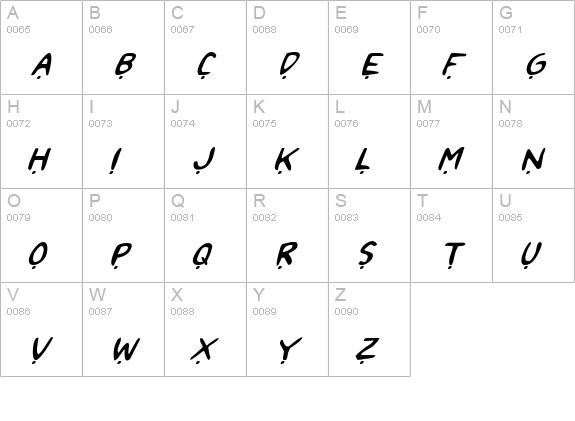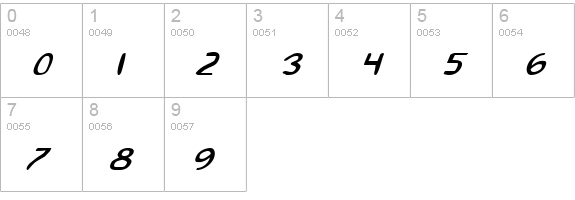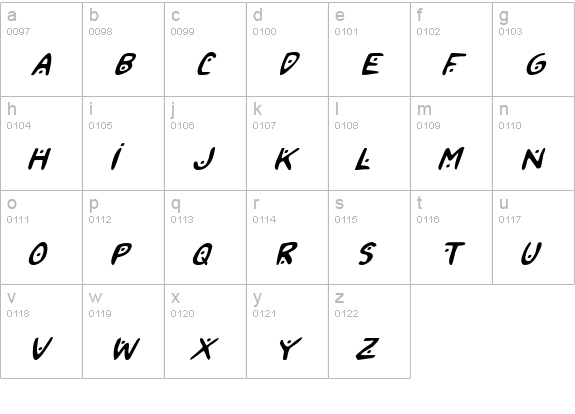
2Toon2 Italic Font Details
2Toon2 Italic is a distinctive, italic variant in the 2Toon2 typeface family \xE2\x80\x94 well suited to design and typography projects.
Introducing 2Toon2 Italic font, a whimsical and playful typeface designed to bring a touch of fun to your projects. With its unique and eye-catching appearance, 2Toon2 Italic is perfect for adding a creative twist to any design. Whether you're working on invitations, posters, or branding materials, this font will surely make your text stand out. The italicized style of 2Toon2 adds a dynamic and energetic feel to your text, making it ideal for conveying a sense of movement and excitement. Its quirky and cartoonish look will appeal to both children and adults alike, making it a versatile choice for a wide range of projects. Best of all, 2Toon2 Italic font is available for free download at FontsMarket.com. Now you can easily add this charming font to your collection without breaking the bank. Don't miss out on the opportunity to enhance your designs with the playful charm of 2Toon2 Italic font today!